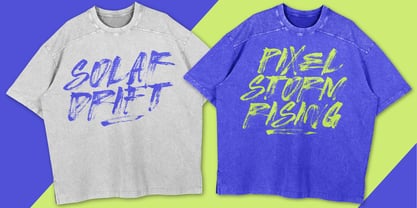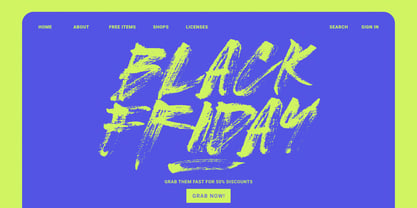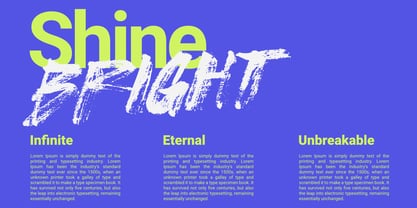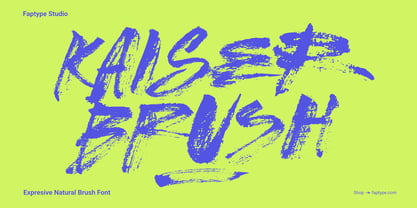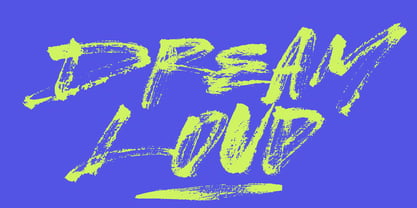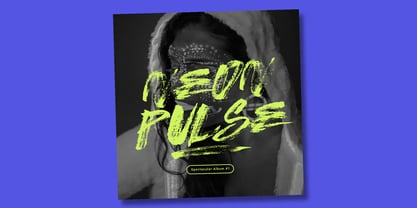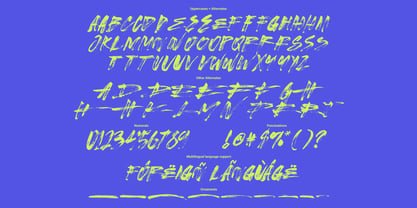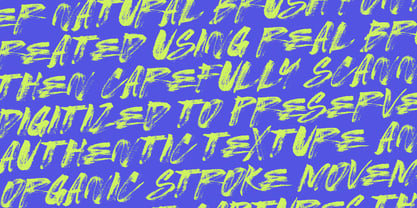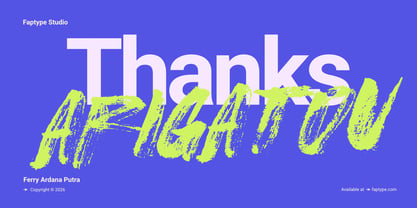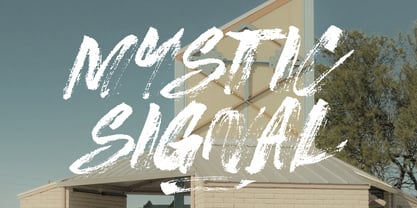
Kaiser Brush
by Ferry Ardana Putra
The Kaiser Brush Font Family was designed by Ferry Ardana Putra and published by Ferry Ardana Putra. Kaiser Brush contains 1 styles. More about this family
Kaiser is a super natural brush font created using real brush and ink, then carefully scanned and digitized to preserve its authentic texture and organic stroke movement. This font captures the raw beauty of traditional brush lettering with a natural, expressive, and timeless feel. Unlike digital brush simulations, Kaiser maintains real ink flow, pressure variation, and natural imperfections—making it a perfect choice for designers who want a genuine handcrafted look. Super Natural Brush Font With Authentic Ink Texture Kaiser is designed as a true super natural brush font, combining traditional brush techniques with modern usability. Each character reflects real hand movement, resulting in fluid strokes and organic rhythm. The natural ink texture gives the font a soft yet bold personality, making it ideal for designs that need warmth, authenticity, and artistic expression. Font Features Kaiser includes: ✔ Uppercase letters (A–Z) ✔ Lowercase letters (a–z) ✔ Numerals (0–9) ✔ Symbols & punctuation ✔ Alternate characters for natural variation ✔ Smooth handwritten flow The alternate characters help create more realistic and dynamic lettering compositions. Authentic Handmade Brush Style This super natural brush font was created using real brush and ink, then scanned to retain: ✔ Natural brush pressure ✔ Organic stroke movement ✔ Ink texture and grain ✔ Slight imperfections that add character These details make Kaiser feel alive and truly handcrafted. Perfect For Kaiser works perfectly for: ✔ Logo branding ✔ Handmade product packaging ✔ Wedding invitations ✔ Social media content ✔ Quotes and typography design ✔ Lifestyle branding ✔ Artisan and craft projects ✔ Personal and commercial use Why Choose Kaiser? ✔ Created with real brush and ink ✔ Authentic scanned texture ✔ Natural and organic brush flow ✔ Includes alternate characters ✔ Perfect for warm and expressive designs Kaiser is built for designers who want a natural, human touch in their typography. Features of Kaiser Font ✔ Uppercase & lowercase letters ✔ Numbers & punctuation ✔ Multilingual support ✔ PUA-encoded characters ✔ OpenType features ✔ 252+ glyphs ✔ Dry brush swashes included
Designers: Ferry Ardana Putra
Foundry: Ferry Ardana Putra